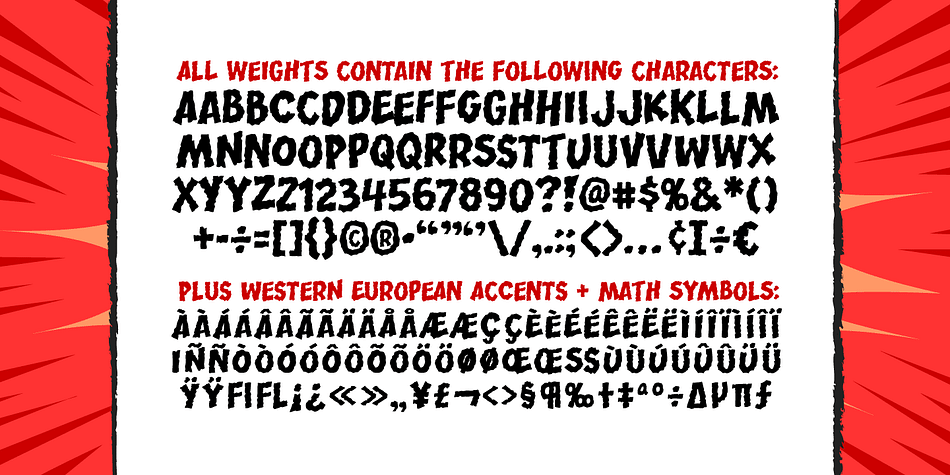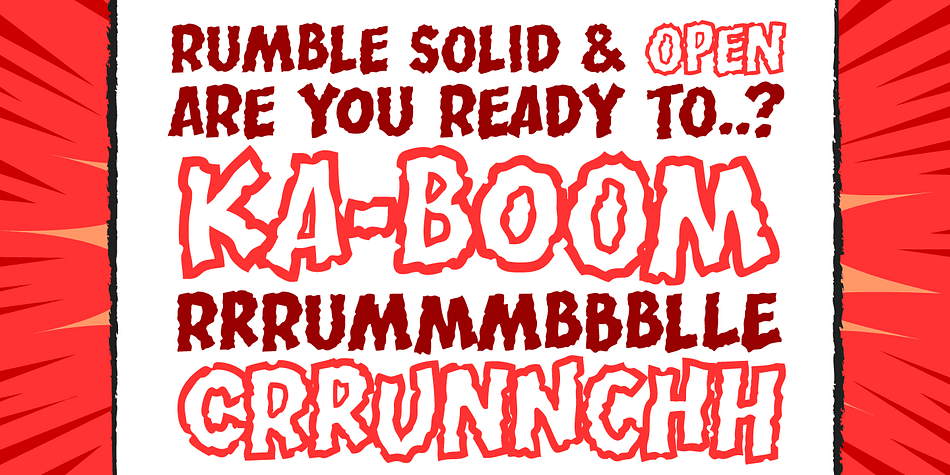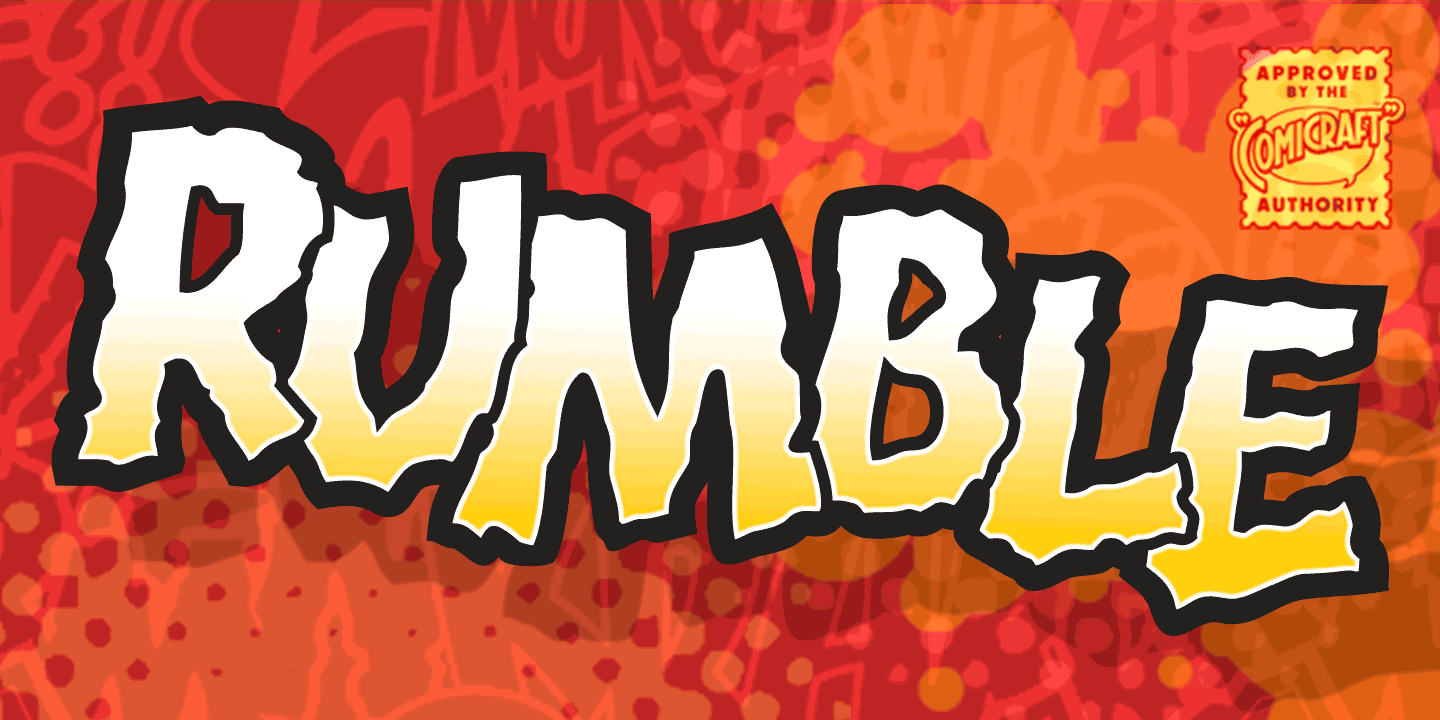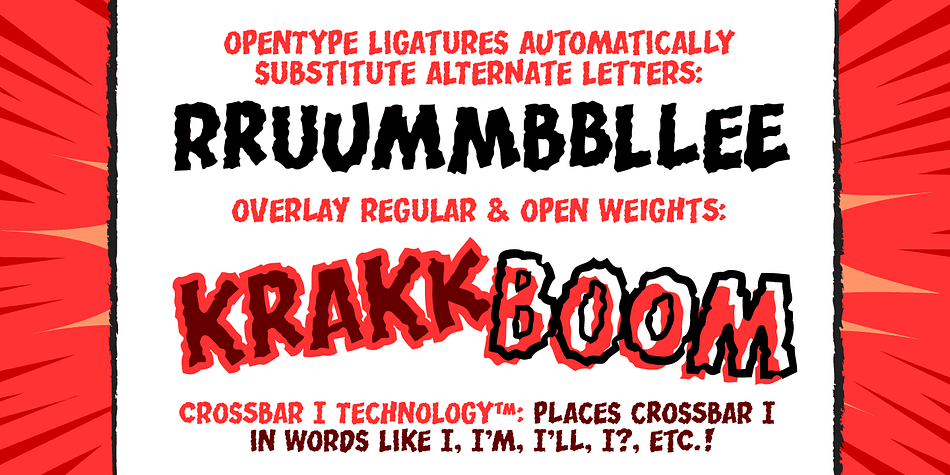
Designed by John Roshell, Rumble is a comic and novelty font family. This typeface has two styles and was published by Comicraft.
Hold on to your Hats and Stand in a convenient Door Frame, and be warned that anything you have on your desktop that is not nailed down is going to hit the floor when these characters thunder across your hard drive. Perfect for sound effects like BOOM! THOOM and, er… RUMBLE, this font family is an Earth Shaker!